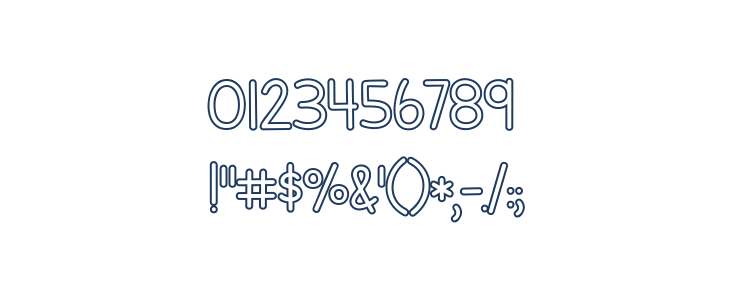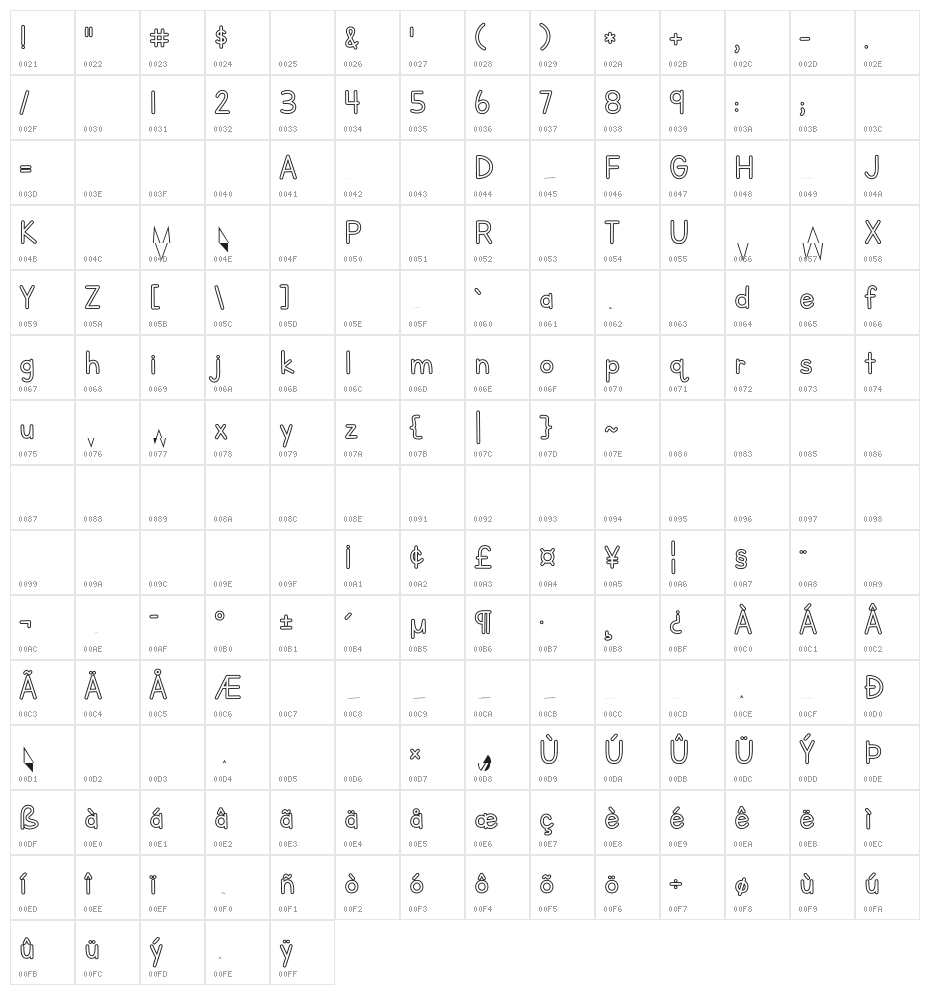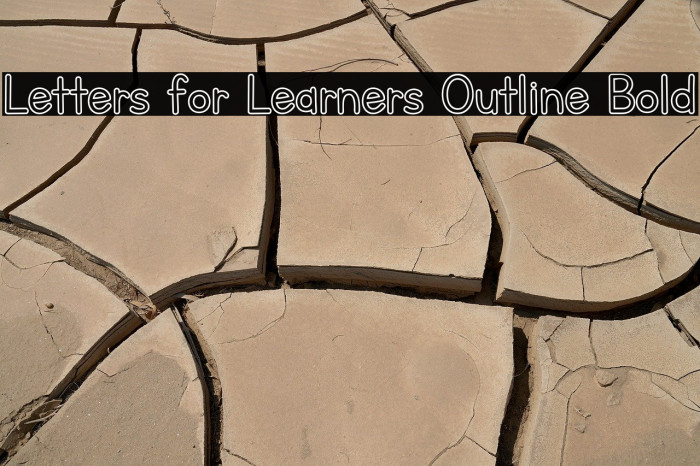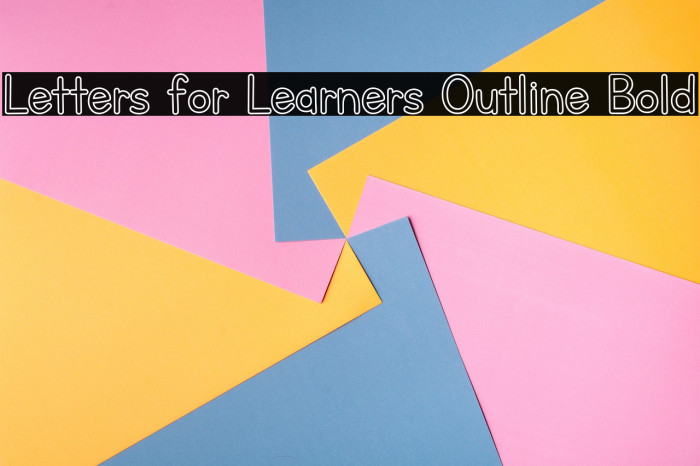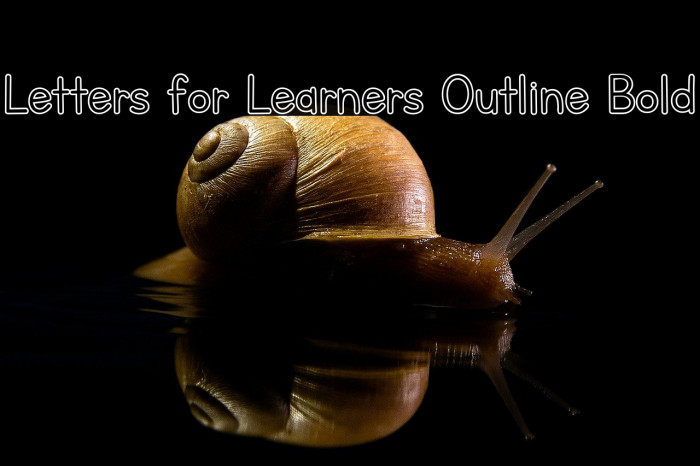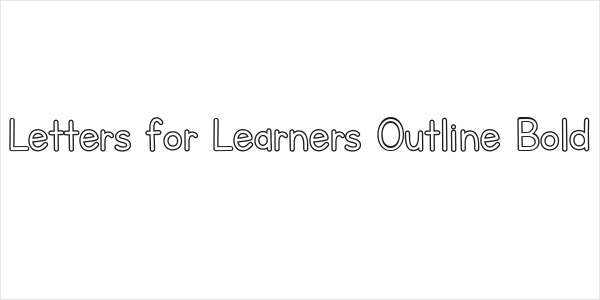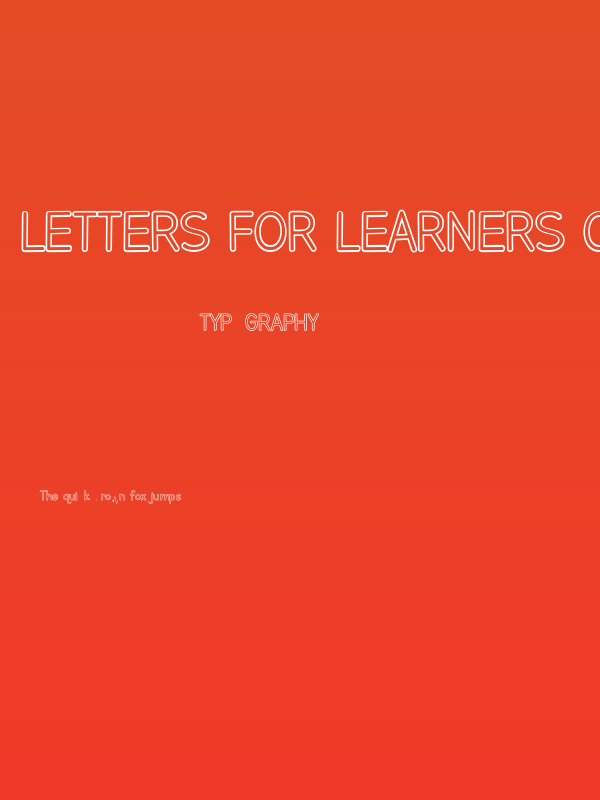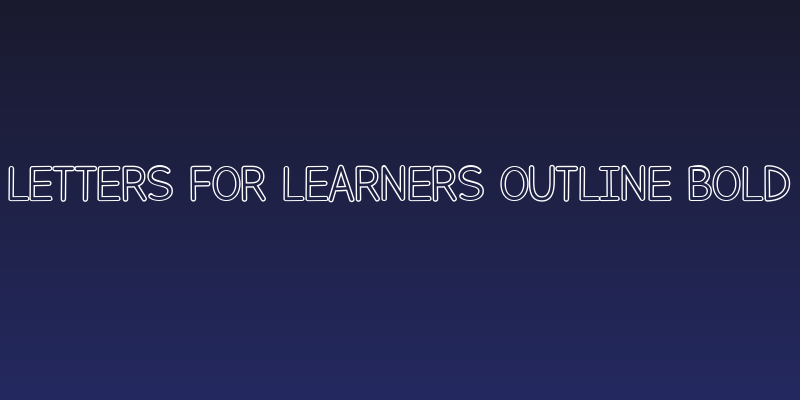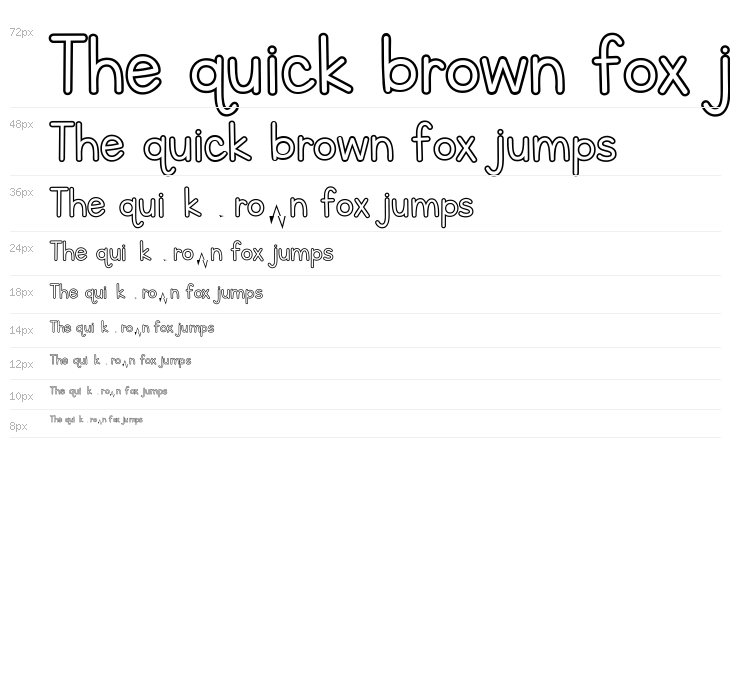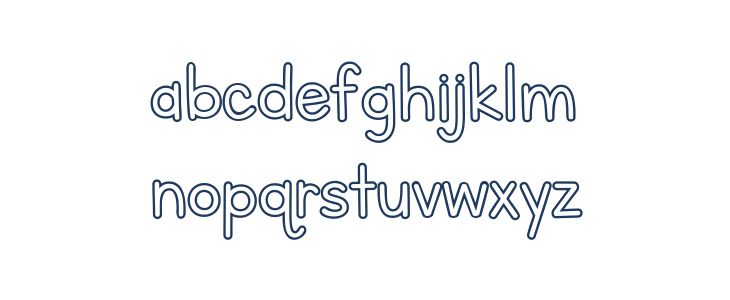
Letters for Learners Outline Bold Font
Letters for Learners Outline Bold Description
This font features a playful and approachable outline style, characterized by its bold and rounded letterforms. The uppercase and lowercase letters maintain a consistent thickness, providing a uniform appearance across all characters. The numbers and special characters are designed to match the overall aesthetic, making them easily readable and visually appealing. This font's outline design adds a unique touch, making it stand out while remaining legible. Its bold nature ensures that it captures attention, making it suitable for various creative applications.
| Overall Style | Playful, Modern |
| Use Case | Headlines, Logos, Educational materials |
| Proposed Projects | Ideal for children's books, educational materials, playful branding, and creative posters. |